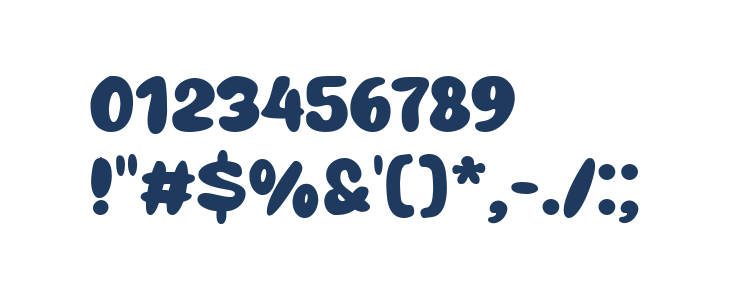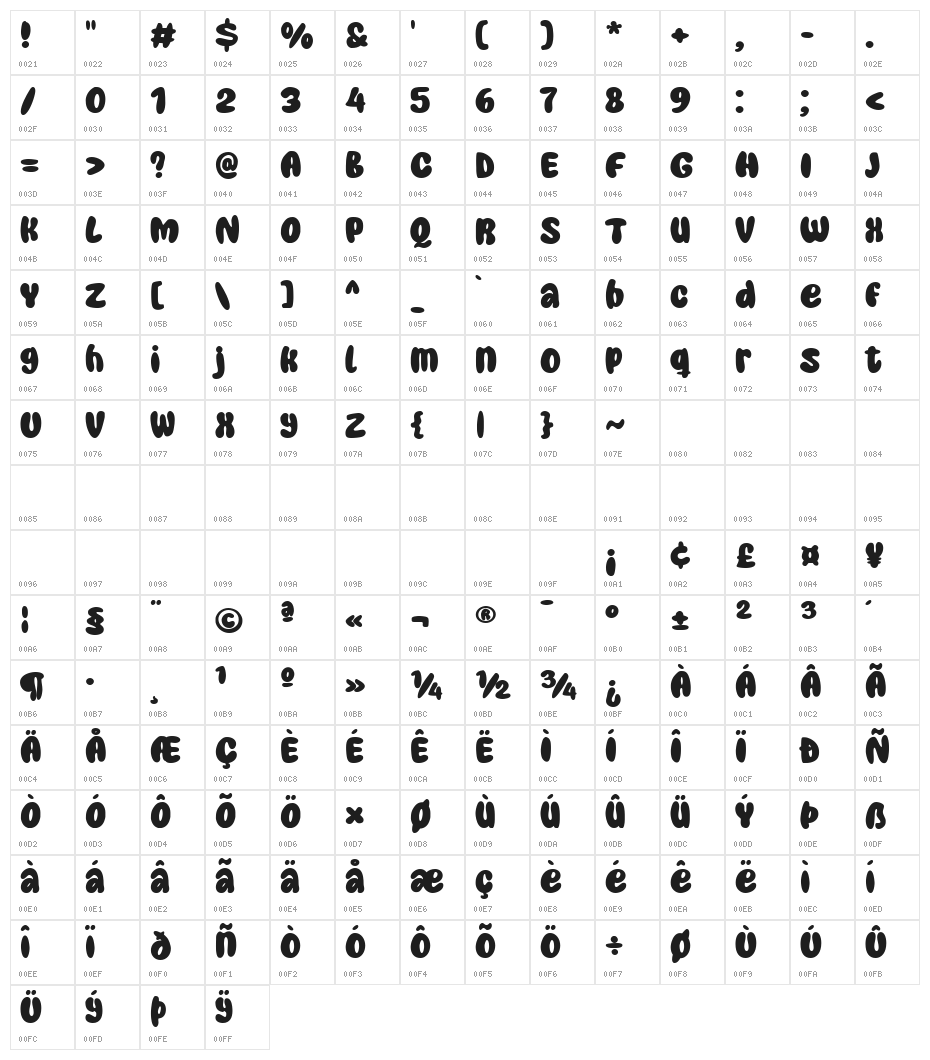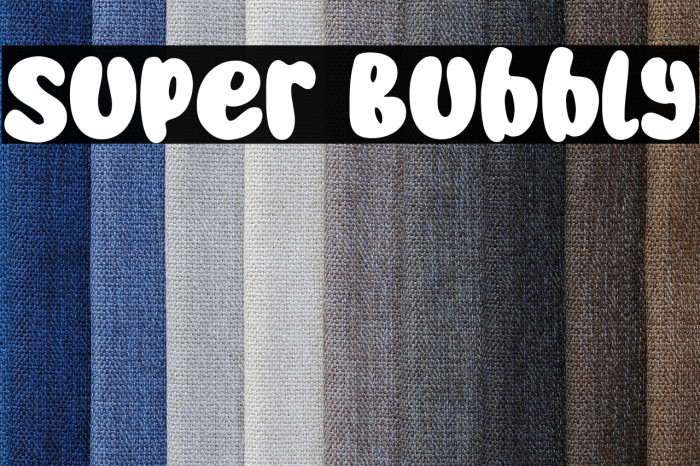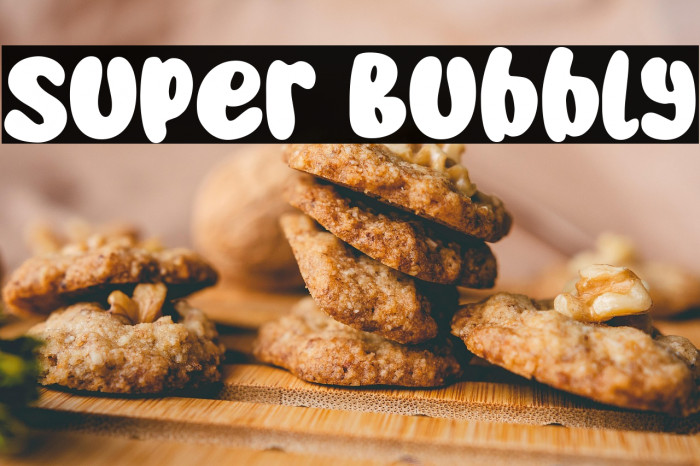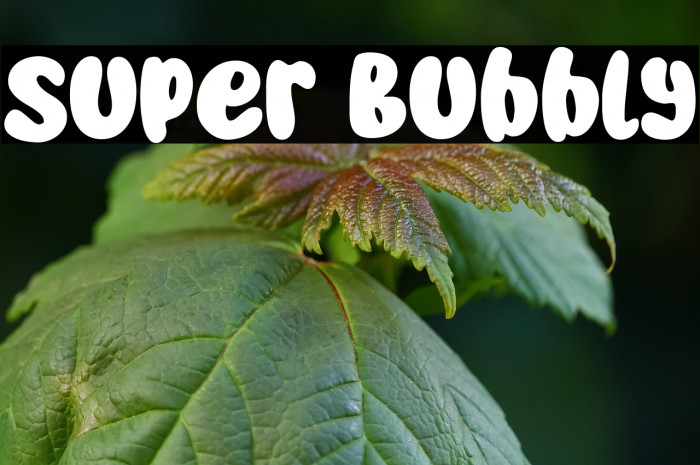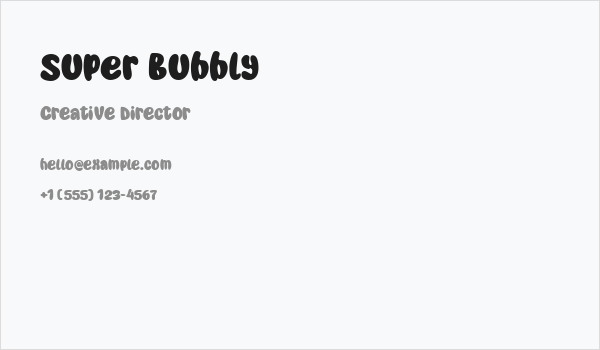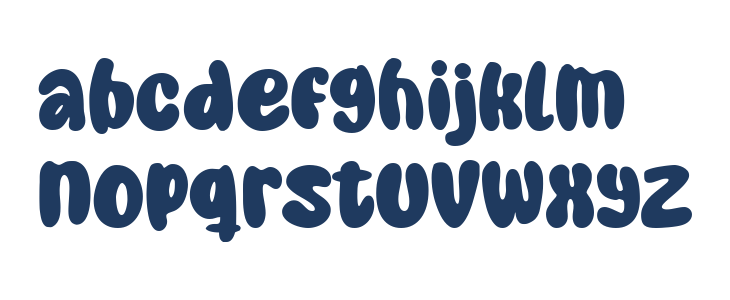
Super Bubbly Font
Super Bubbly Description
This font features a playful and bold design with rounded, bubbly characters that exude a sense of fun and whimsy. The letters are thick and have a uniform stroke width, creating a cohesive and eye-catching appearance. The overall style is reminiscent of cartoon or comic lettering, making it ideal for projects that require a lively and energetic vibe. The characters are well-spaced, ensuring readability while maintaining the font's distinctive style. The numbers and special characters are consistent with the alphabet, maintaining the same bubbly and bold characteristics.
| Proposed Projects | Ideal for children's books, playful branding, party invitations, and comic-style graphics. |